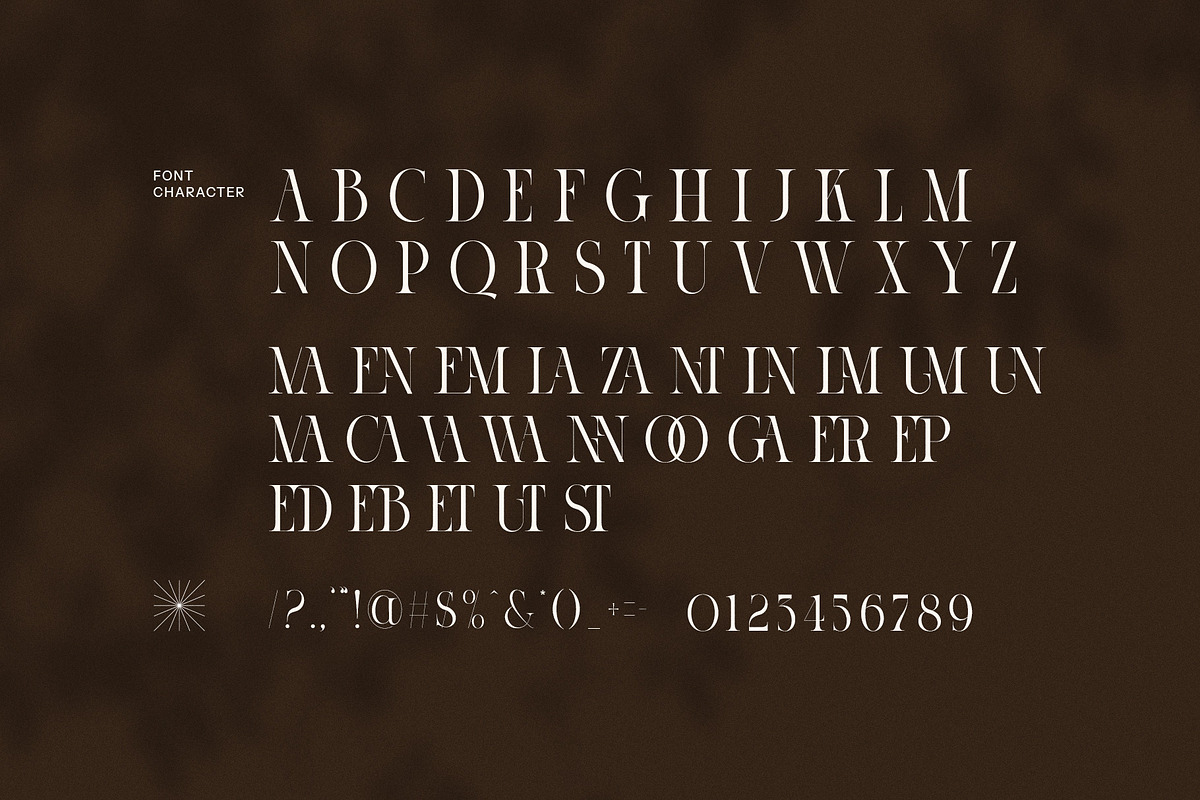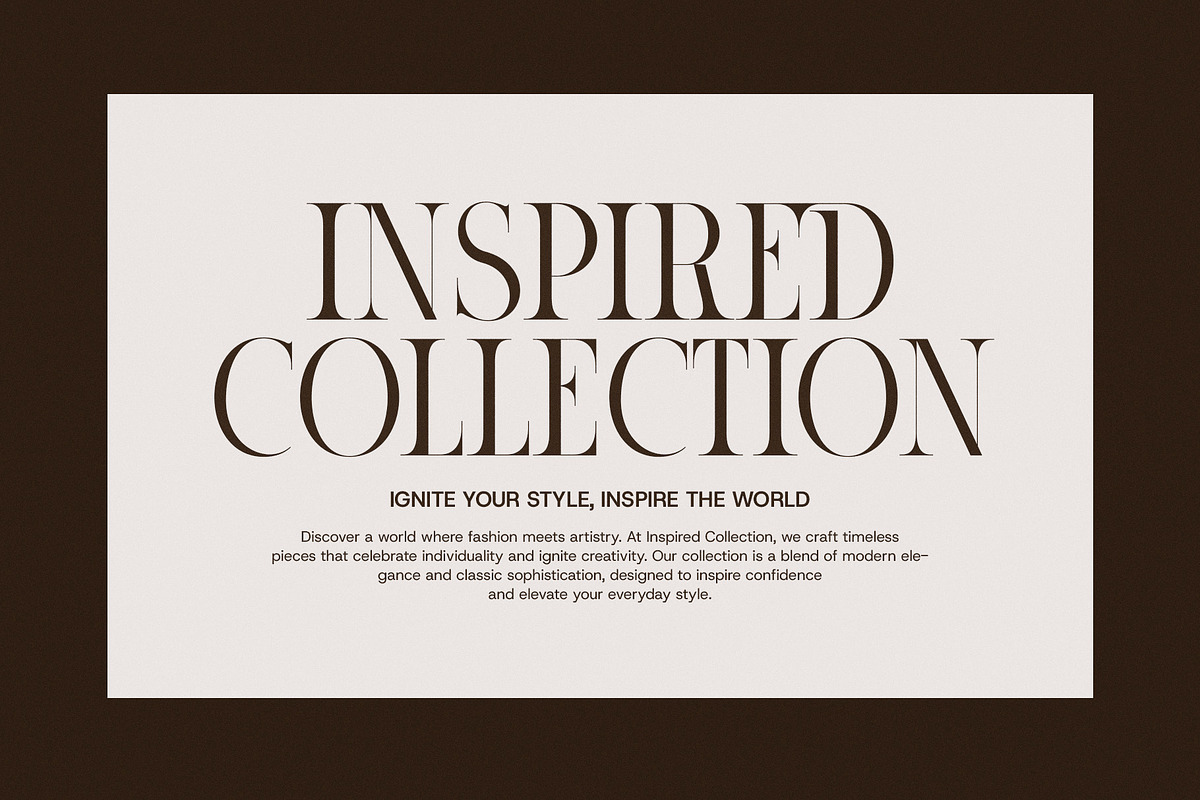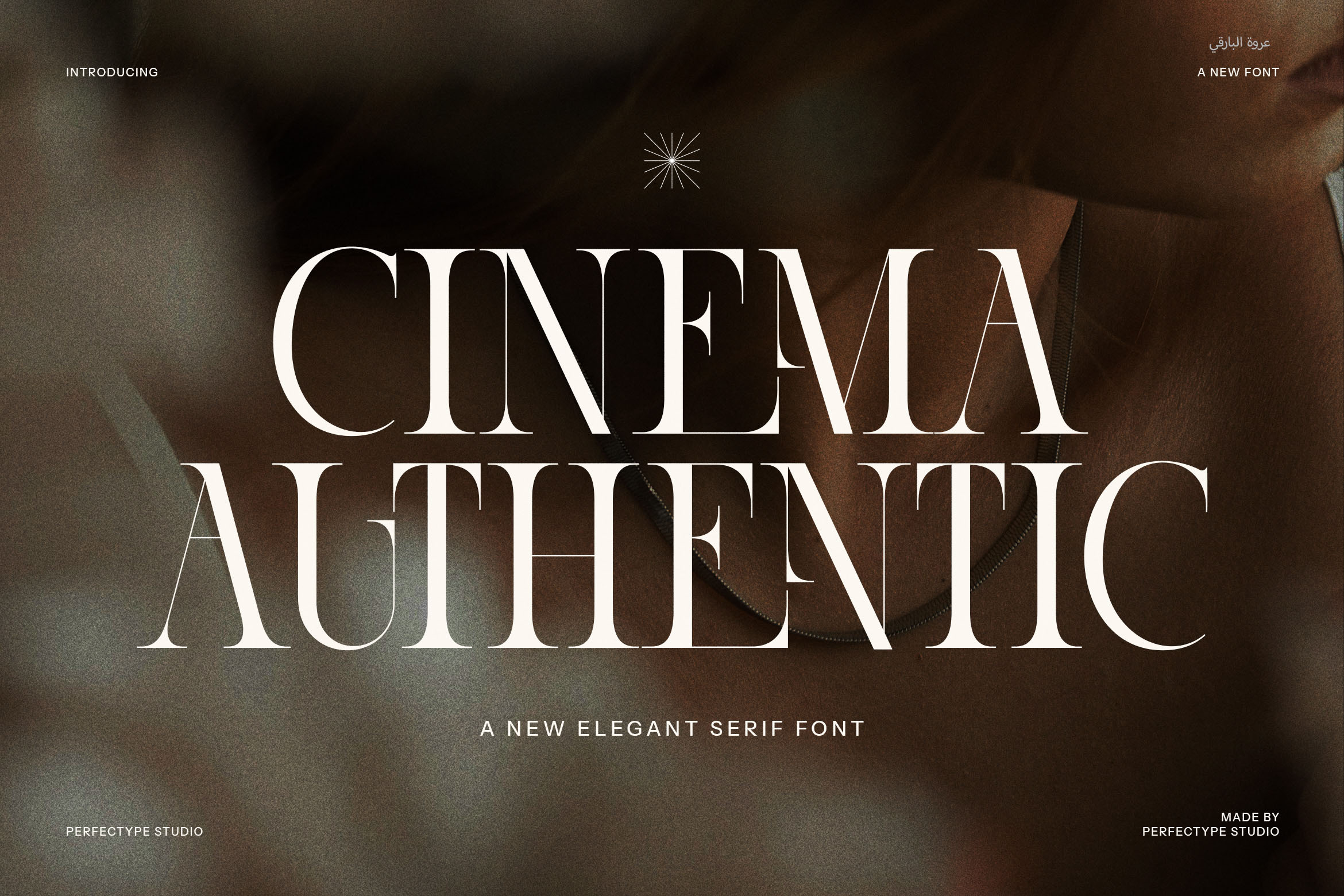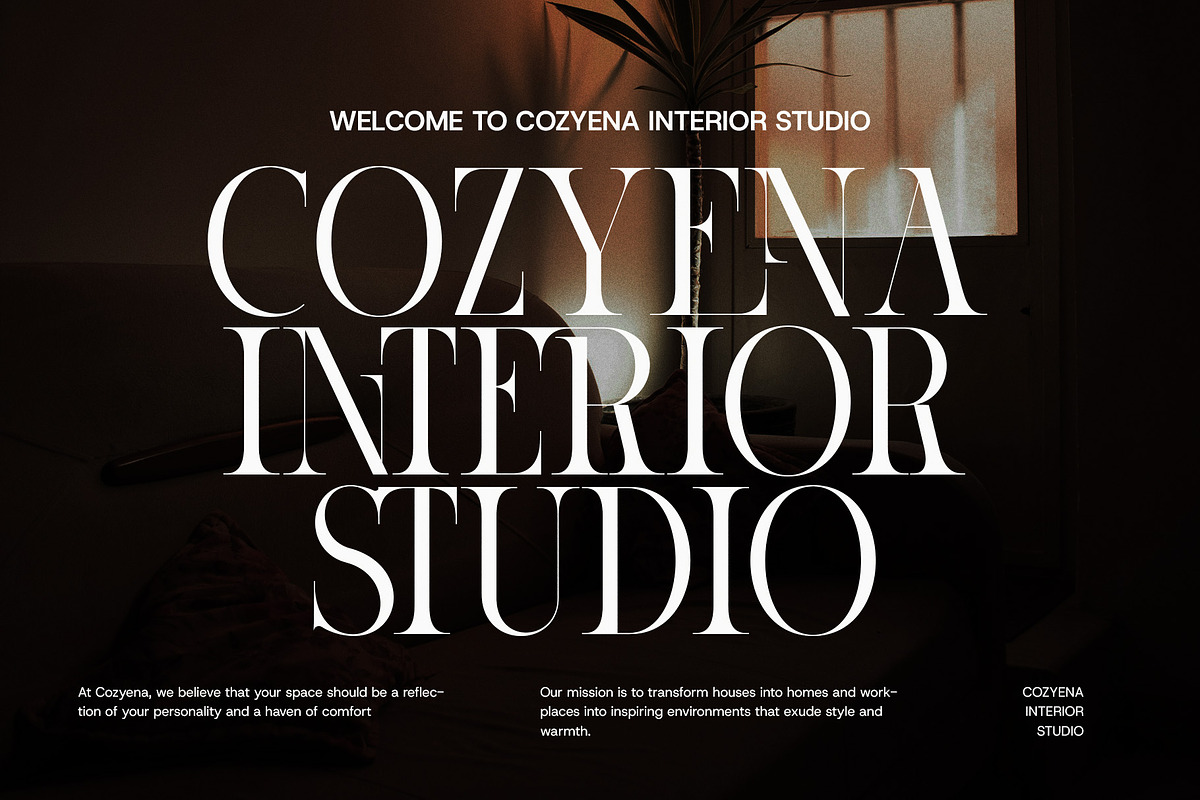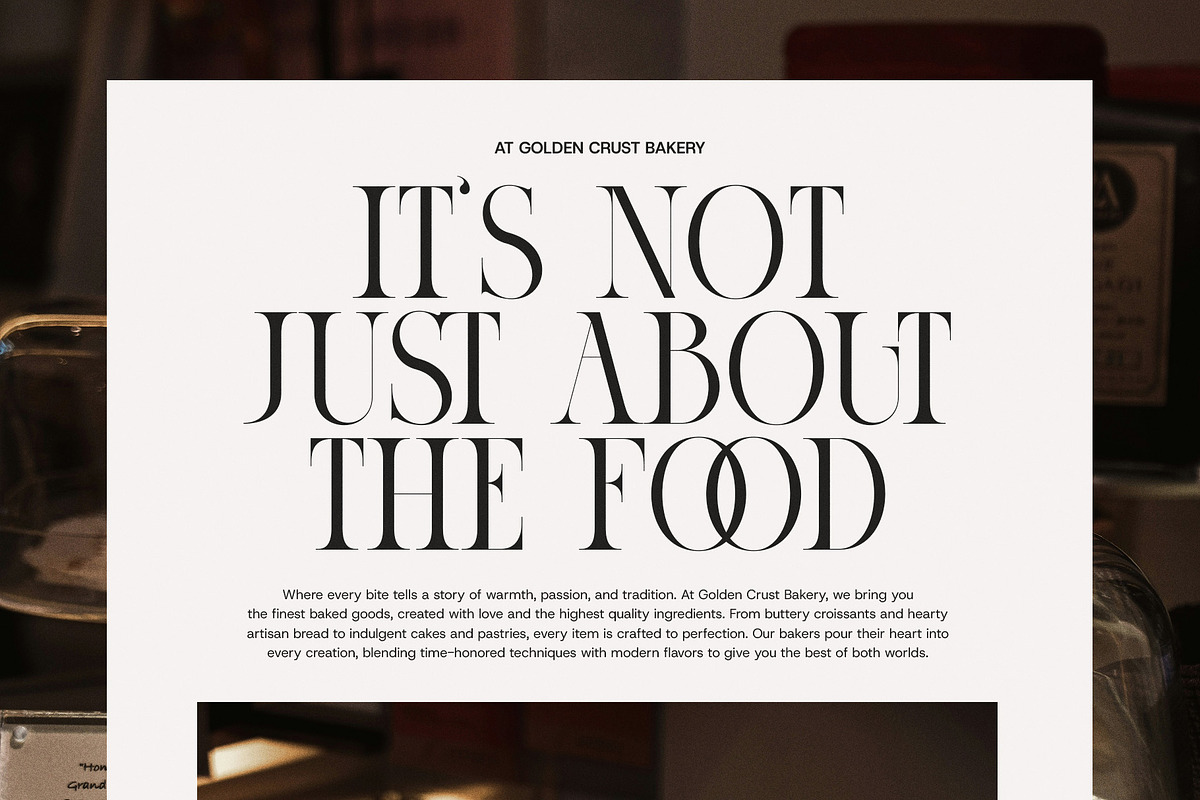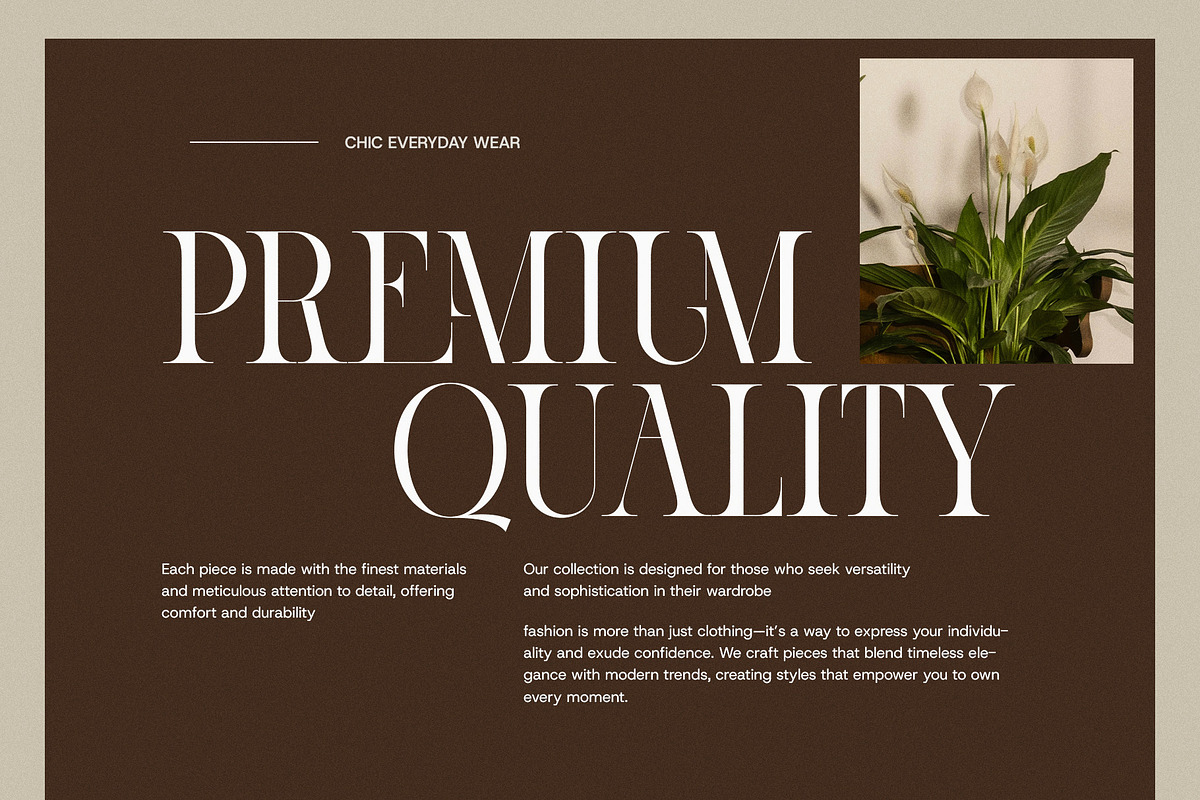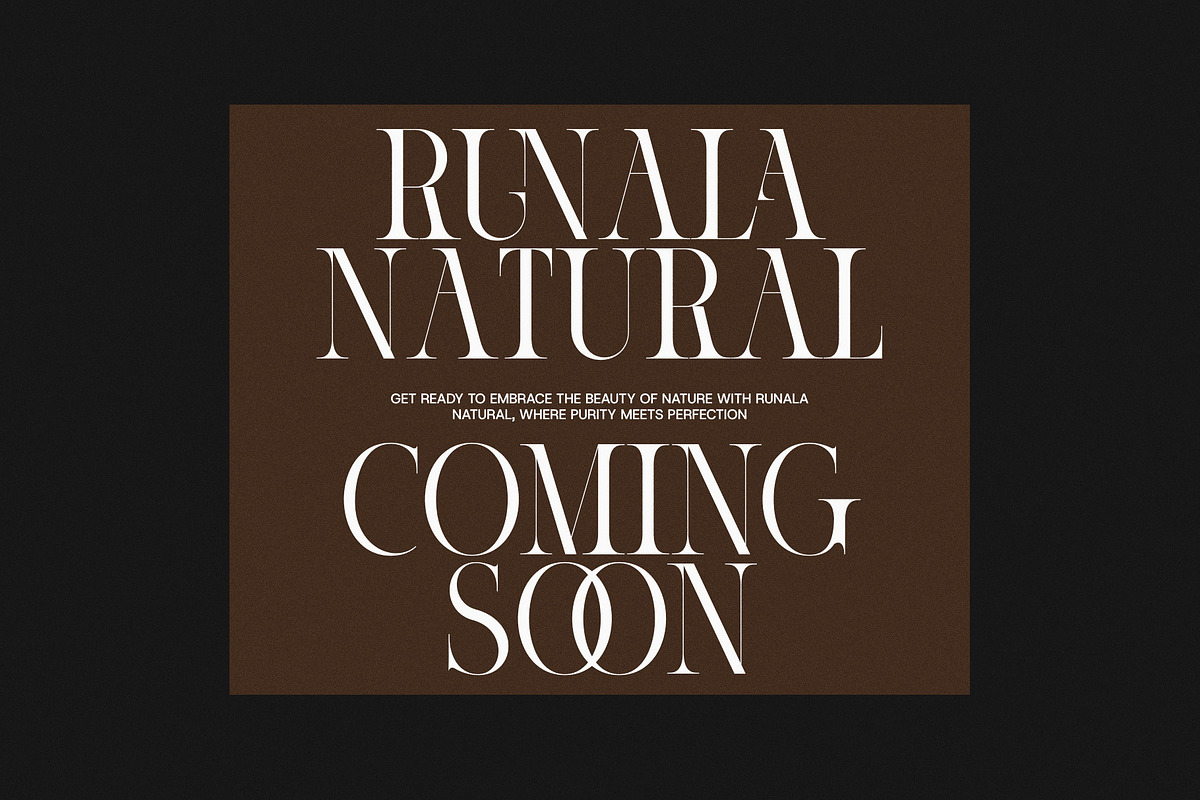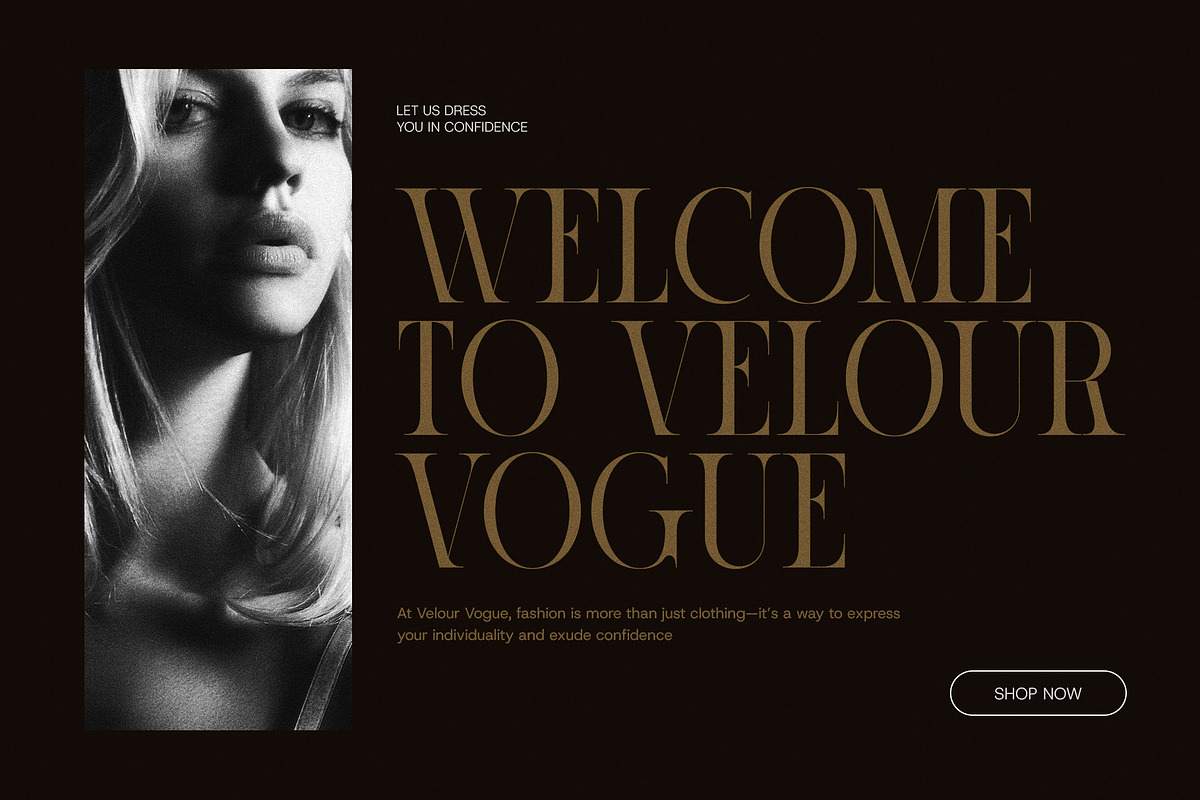
Cinema Authentic Elegant Serif Font
Cinema Authentic Elegant Serif Font is the perfect fusion of classic sophistication and modern flair. With its refined, sharp serifs and elegant curves, this font brings a sense of luxury and timeless style to any design project. The distinctive ligatures and alternate characters offer a touch of personality, allowing for creative flexibility and a unique, custom look that sets your designs apart.
Ideal for high-end branding and logo design, Cinema Authentic shines in a variety of applications, from upscale product packaging to refined websites and striking magazine layouts. Its bold presence makes it an excellent choice for advertising campaigns, ensuring your message grabs attention while maintaining an air of elegance. Whether you're designing for a boutique, restaurant, fashion brand, or any luxury service, this font exudes both sophistication and approachability.
Cinema Authentic’s versatility extends across both digital and print formats, performing beautifully in both large headings and smaller body text. Its modern yet timeless design makes it equally at home in contemporary settings as it does in more classic, upscale contexts. Whether for a product launch, branding refresh, or editorial project, Cinema Authentic’s elegance and readability provide the perfect balance of style and function.
Elevate your creative projects with Cinema Authentic Elegant Serif Font—a high-quality typeface that brings an undeniable sense of style, class, and versatility to any brand, product, or design project. It’s the ideal choice for designers looking to make a lasting impression with sophistication and modern charm.